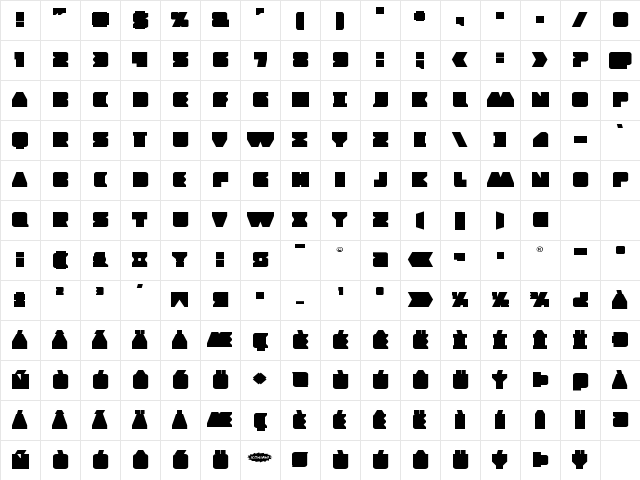
Complete Contour of Duty Expanded glyph index. Displaying only characters natively supported by Contour of Duty Expanded font.
Contour of Duty Expanded is a composed and adaptable typeface that performs quietly and consistently across a wide range of design contexts.